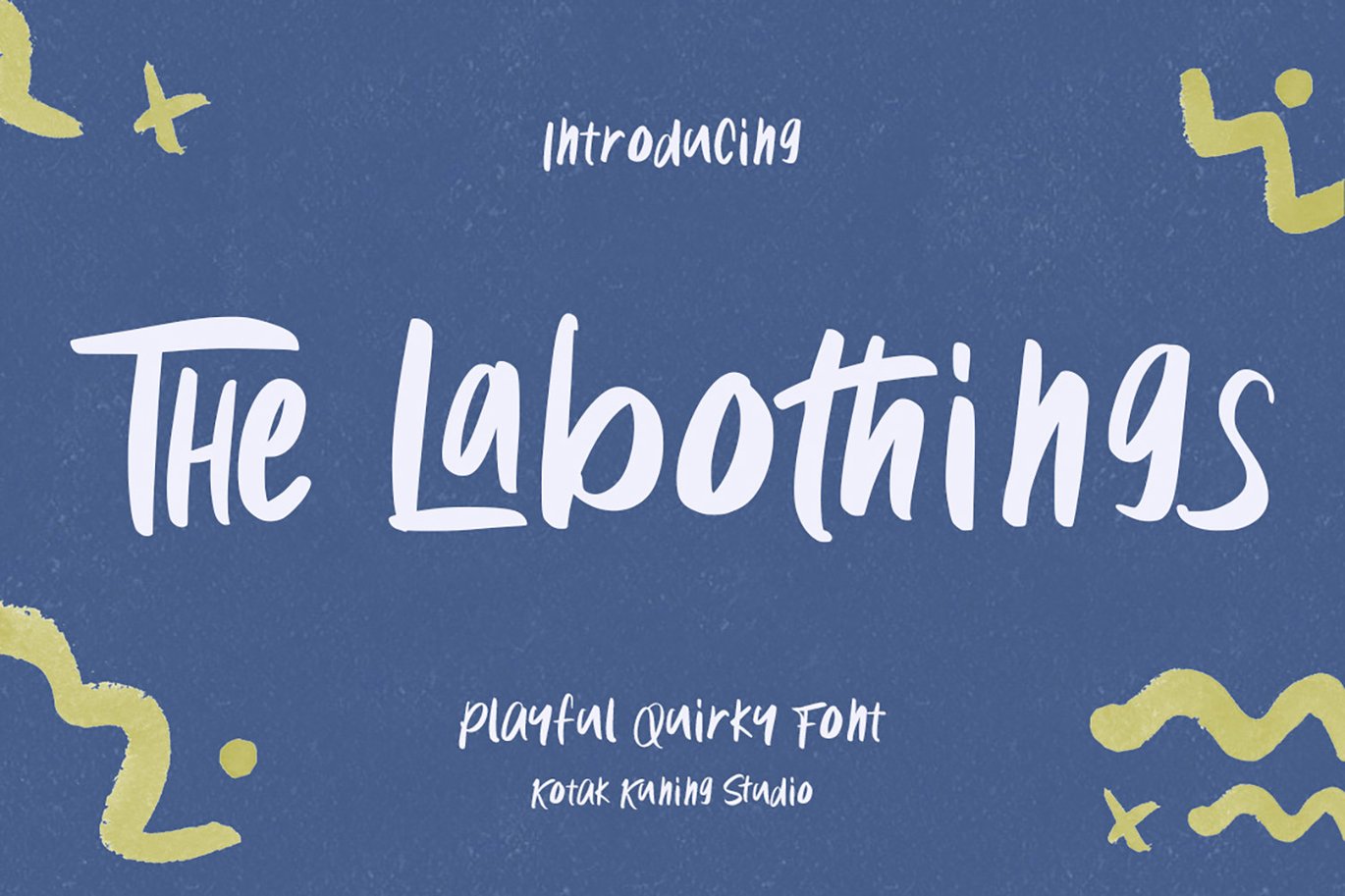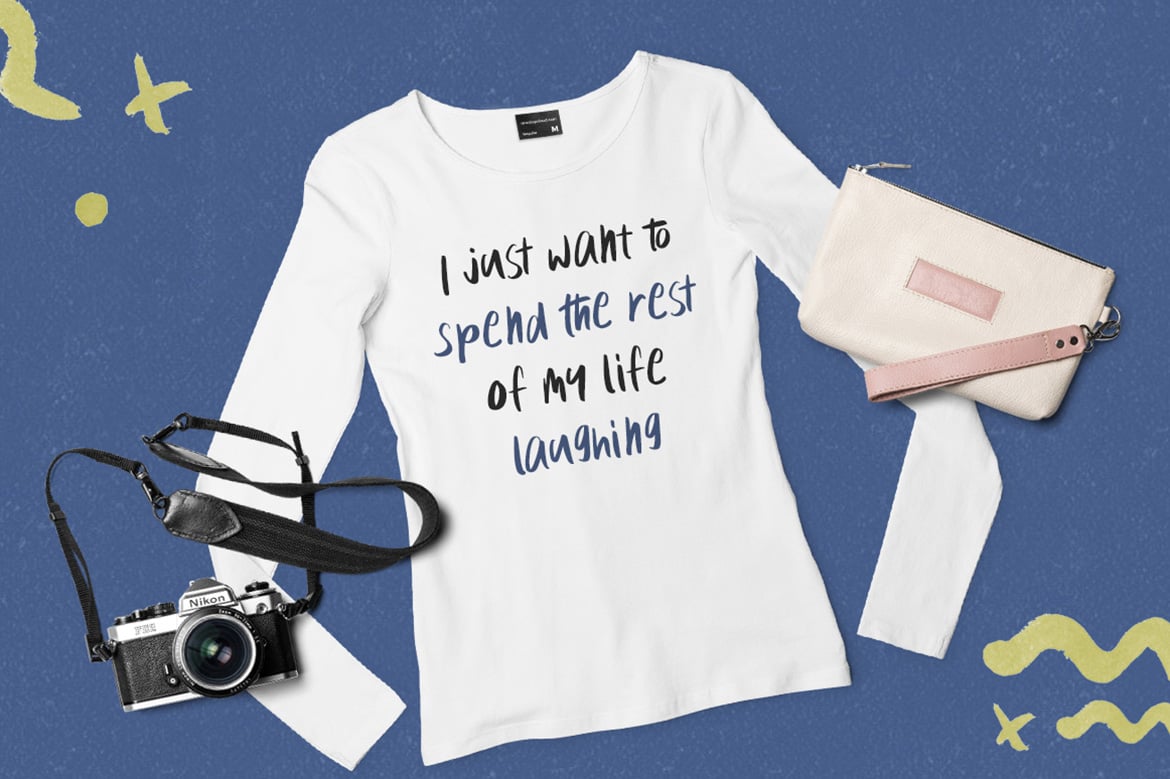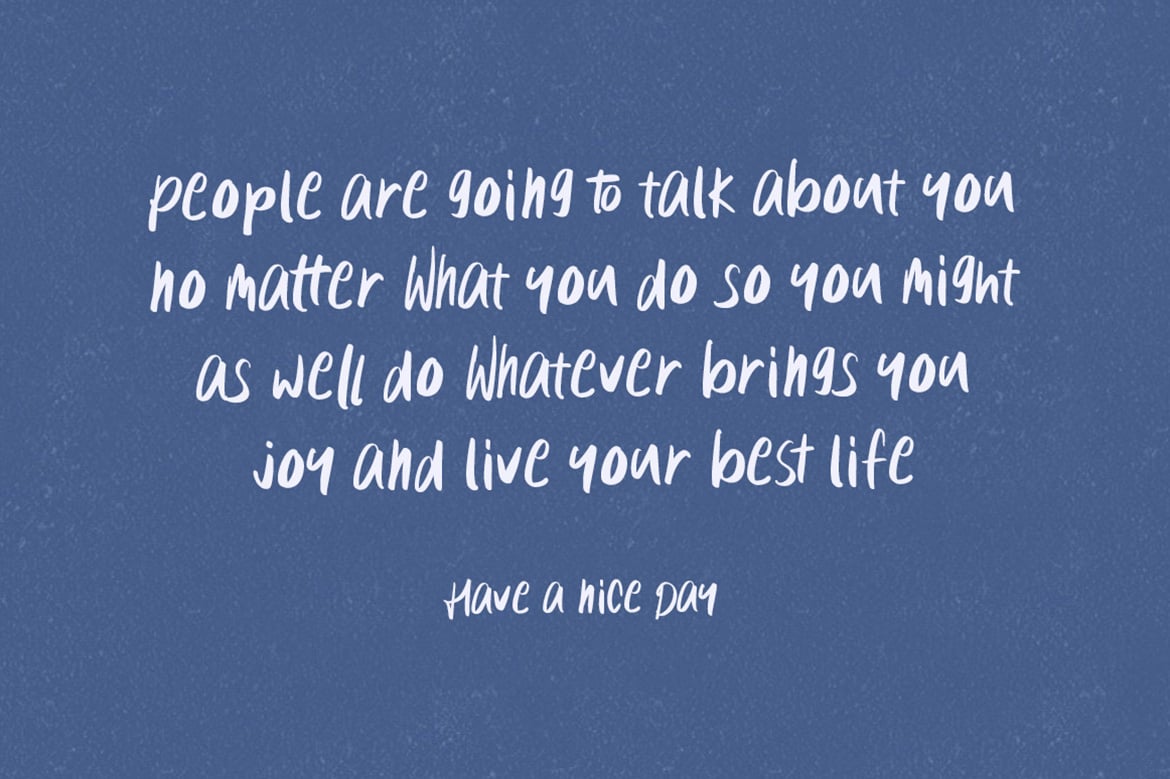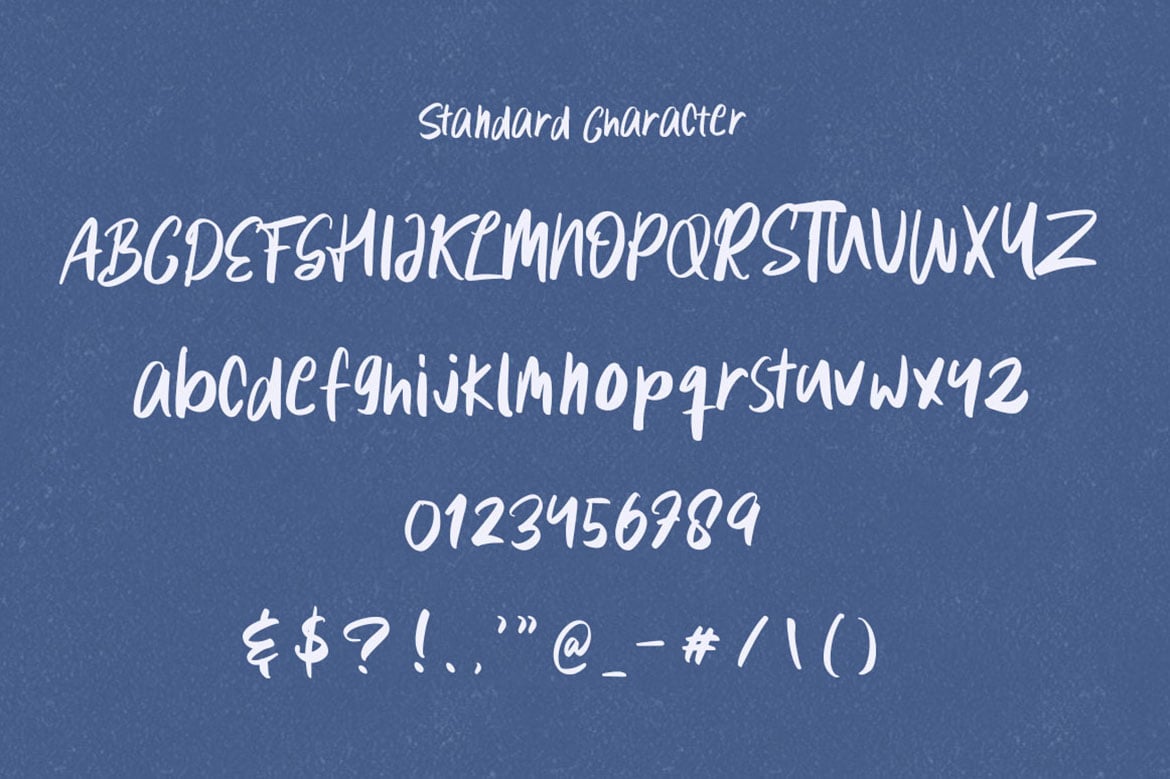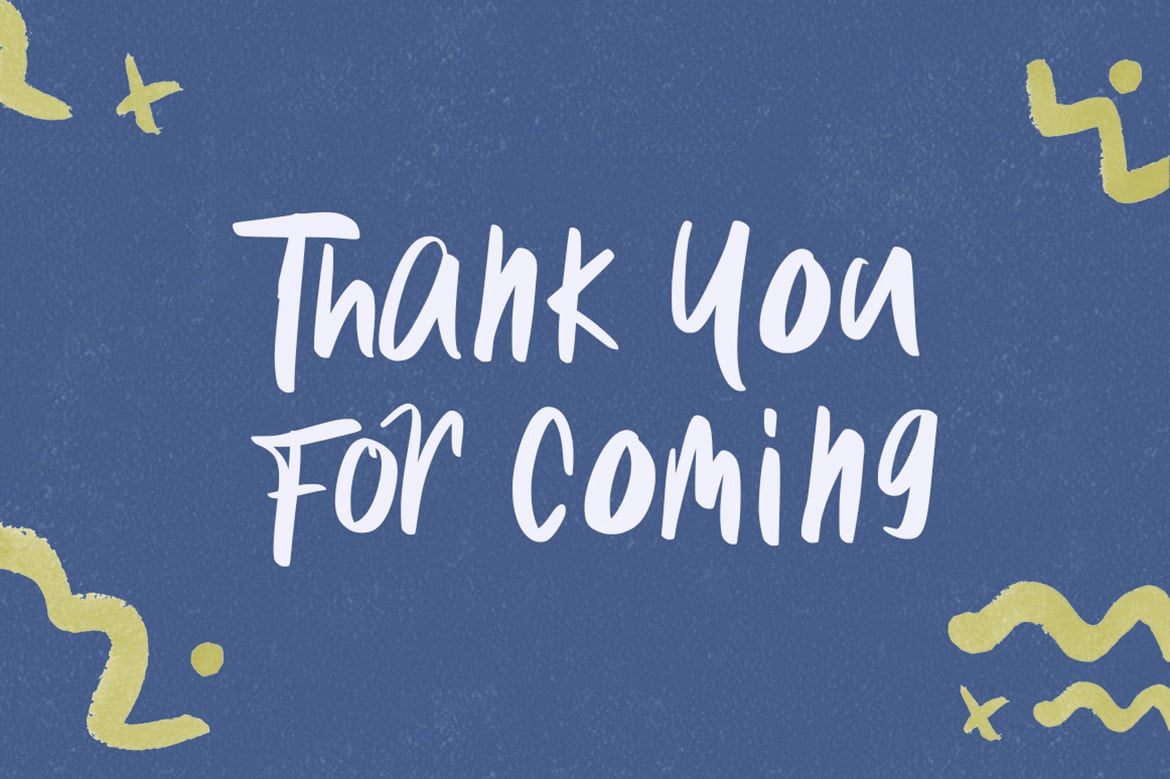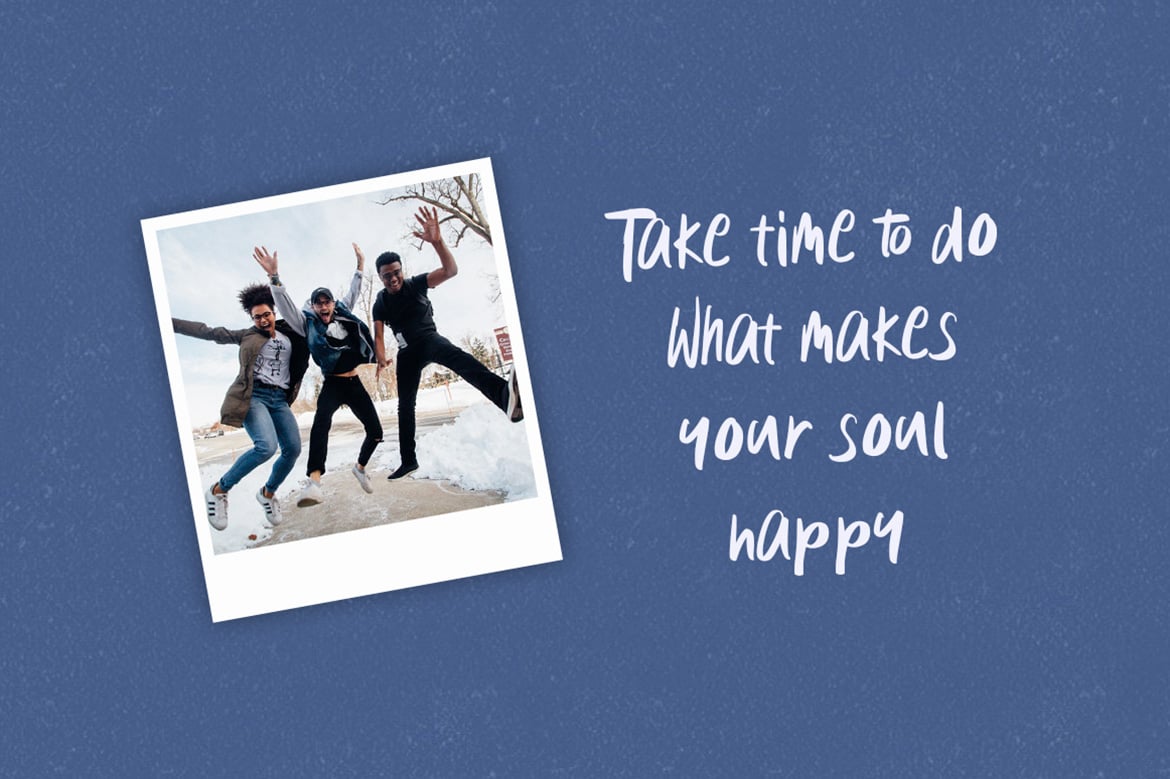
The Labothings – playful and fun font
Introducing The Labothings Font. A playful quirky font. It has a unique and different style and will give your design a fun touch.
The Labothings would be perfect for logos & branding, photography, watermark, social media posts, advertisements, invitation, product designs, label, stationery, wedding designs, product packaging, special events or anything that need handwriting taste.